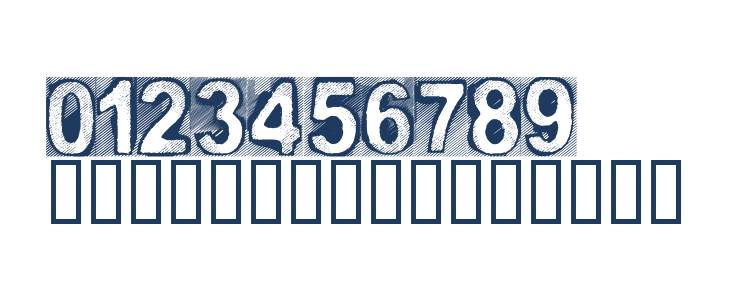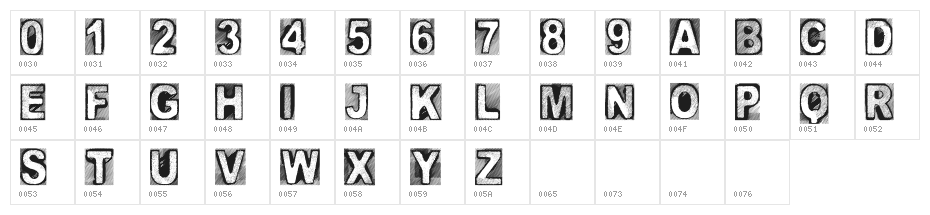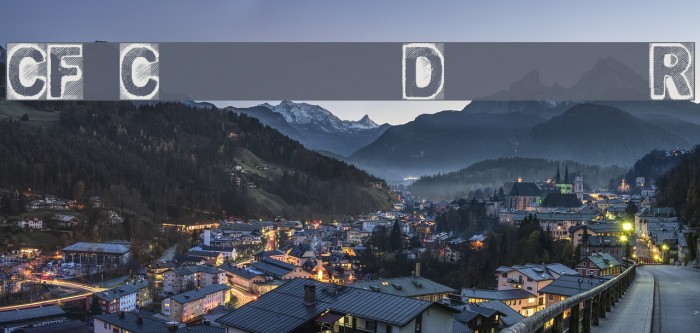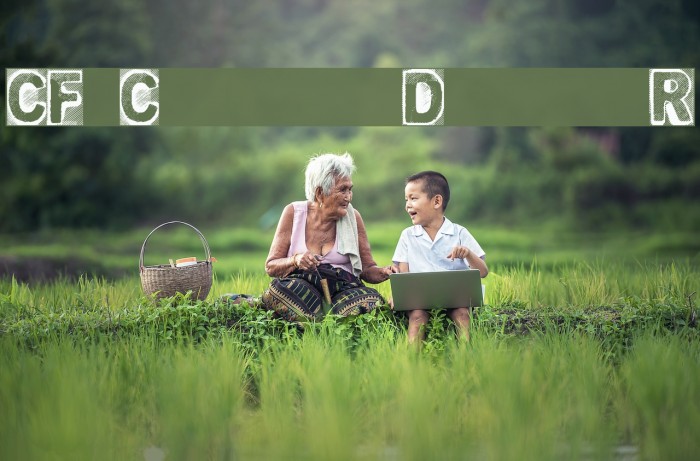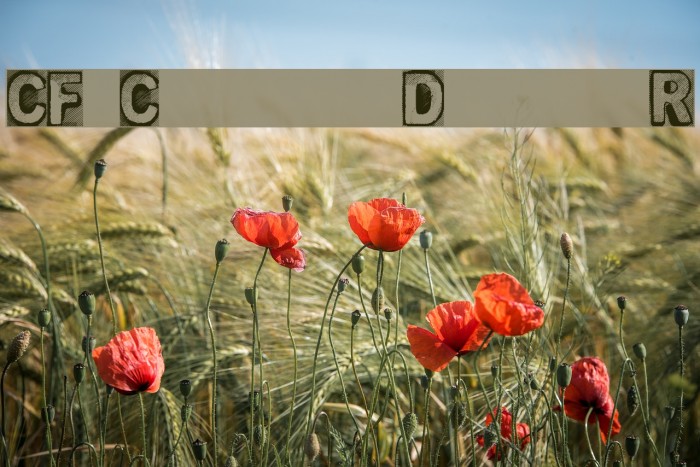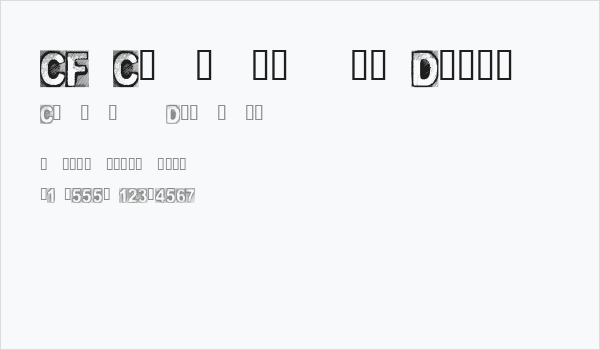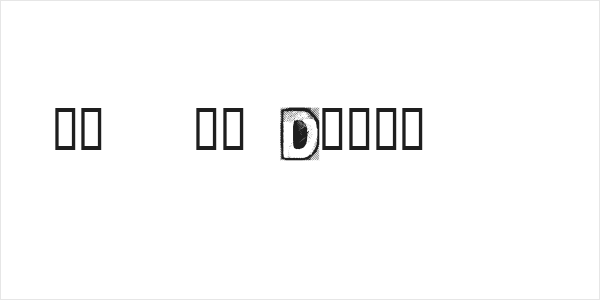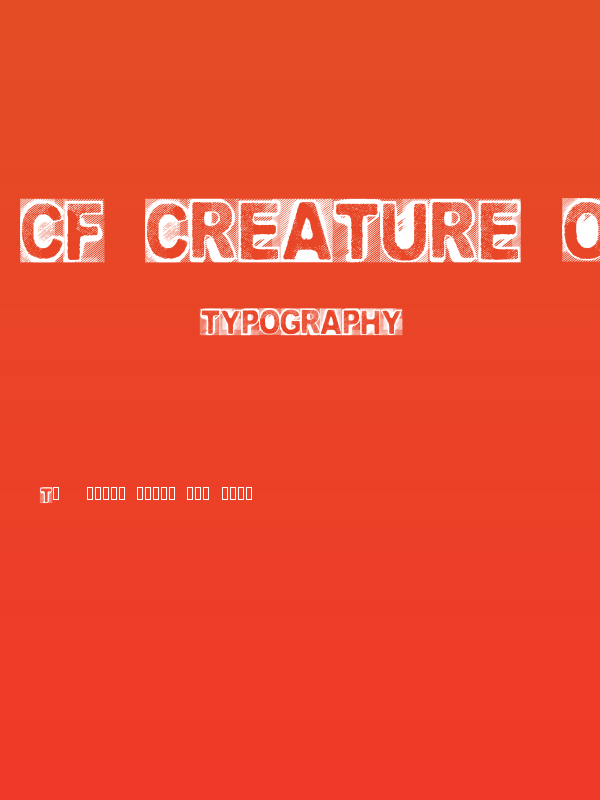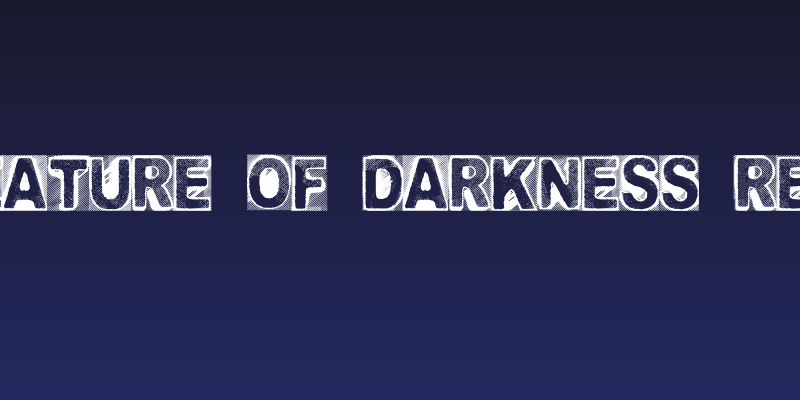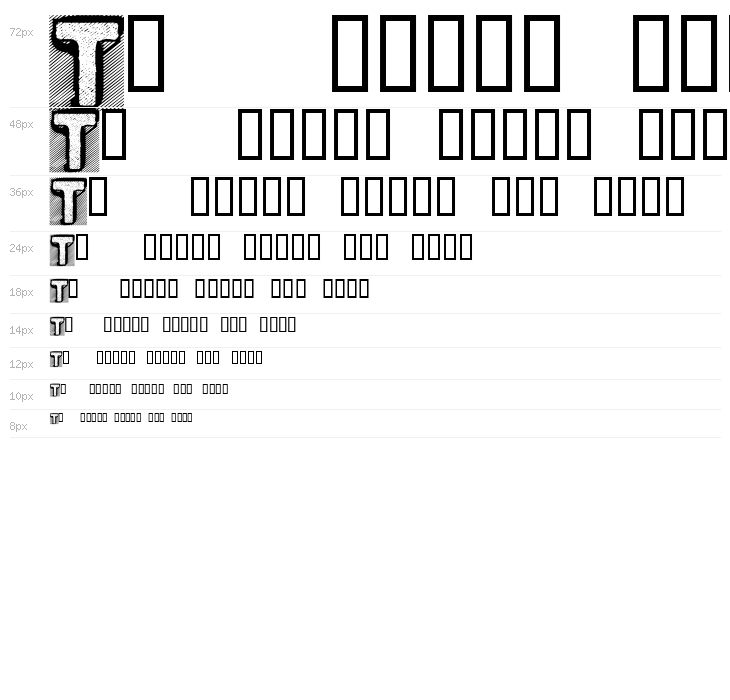
CF Creature of Darkness Regular Font
This font features a bold and dramatic style with a textured, distressed appearance. Each character is filled with a pattern that gives it a shadowy, mysterious look, reminiscent of classic horror or gothic themes. The uppercase letters are strong and impactful, while the numbers maintain the same textured style, making them stand out. The font's unique design is perfect for creating an eerie or dark atmosphere in any project. Its boldness ensures that it captures attention, making it ideal for headlines or titles that need to convey a sense of mystery or intrigue.
| Overall Style | Gothic, Mysterious, Dramatic |
| Use Case | Headlines, Posters, Book Covers |
| Proposed Projects | Ideal for horror-themed posters, book covers, Halloween invitations, or any project requiring a dramatic, eerie aesthetic. |